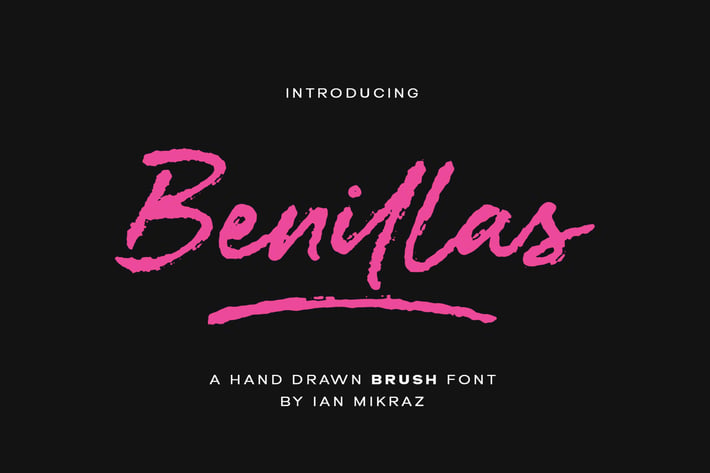
Benillas Brush - A Hand Drawn Brush Font
Benillas is a striking hand-drawn brush font designed for bold and expressive typography. With its rough texture and dynamic strokes, this font exudes energy and personality, making it perfect for posters, album covers, social media graphics, and branding. Inspired by the raw aesthetics of street art and hand-painted signage, Benillas captures the essence of freehand creativity with a modern touch.
Ideal for projects that demand a rebellious and artistic edge, Benillas delivers high-impact visuals for advertising, fashion branding, music events, and editorial design. The natural brush strokes give it a unique handmade look, allowing designers to add authenticity and depth to their work. It pairs well with strong color contrasts, adding an eye-catching presence to any layout.
Whether you're creating a stylish logo, an engaging headline, or a vibrant promotional design, Benillas provides the perfect blend of boldness and versatility. The font includes uppercase and lowercase characters, punctuation, and multilingual support, ensuring seamless adaptability for global projects. Elevate your designs with the raw energy of Benillas Brush Font.
Standart ligatures
Swash